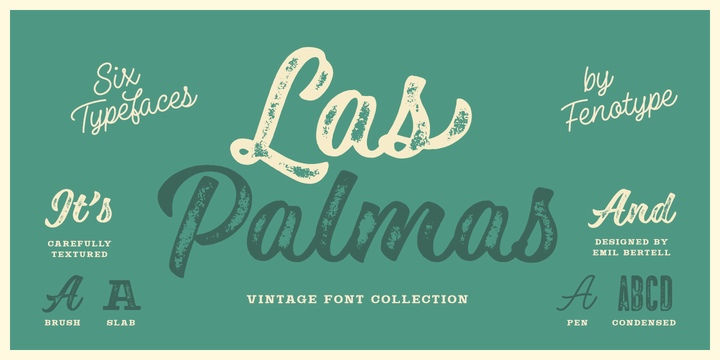
Las Palmas Font
This tropical typeface is perfect for beach resorts, palm tree products, tropical restaurants, vacation branding, island tourism, coastal hotels, summer campaigns, tiki bars, and paradise lifestyle design projects.
What makes this font exciting is its palm-fringed elegance combined with coastal sophistication, offering designers a breezy typeface that captures the essence of tropical paradise while delivering sun-kissed charm and island resort authenticity.
The Las Palmas font family includes light, regular, medium, bold, tropical, and paradise variations, providing complete coastal design solutions for creating authentic tropical visual identities.
Whether you're developing tropical hospitality brands or crafting paradise vacation experiences, Las Palmas Font Free Download brings exceptional tropical atmosphere and island authenticity to every application. This breezy typeface combines coastal typography traditions with contemporary resort design, creating letterforms that evoke relaxation and tropical luxury simultaneously. The font's paradise construction and vacation-ready details make it perfect for brands seeking immediate tropical recognition.
Las Palmas Font features carefully crafted tropical styling with authentic coastal character that conveys genuine island expertise. Each character has been designed to reflect the swaying elegance of palm trees, with flowing proportions and tropical elements that enhance the paradise aesthetic. The font's coastal qualities make it particularly effective for hospitality brands and vacation applications.
Professional designers choose Las Palmas Font for projects requiring authentic tropical credibility and coastal atmosphere. Its island heritage makes it exceptionally well-suited for beach resorts, tropical restaurants, and vacation lifestyle brands. The font's versatile tropical variations allow designers to control the paradise intensity, from subtle coastal elegance to full tropical celebration.
The complete Las Palmas Font package offers extensive tropical ornaments and palm decorative elements that enhance the paradise aesthetic. Advanced coastal features allow designers to create complex tropical effects with multiple island-inspired options. This comprehensive tropical toolkit ensures designers have everything needed to create authentic paradise communications that celebrate the endless beauty of tropical coastlines and palm-fringed island luxury.